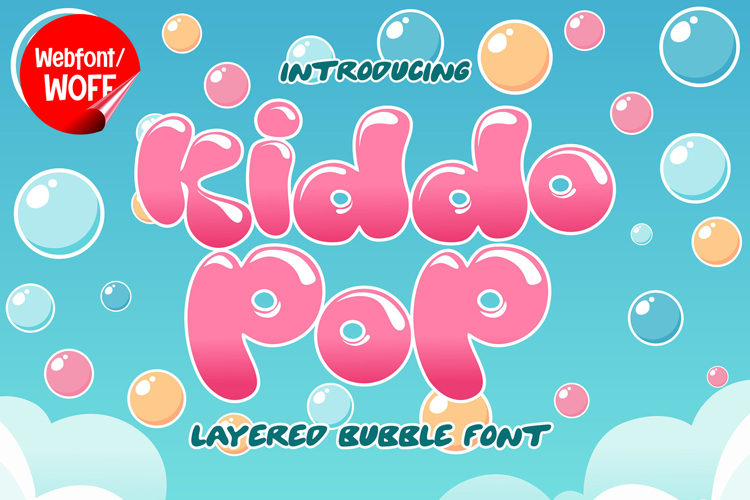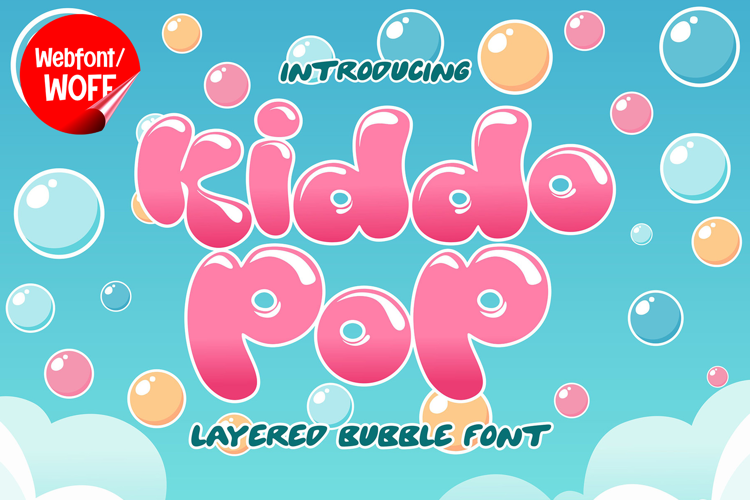
Kiddo Pop | Cute Layered Webfont for Fun Creative Design
Kiddo Pop is a cute layered webfont designed to bring cheerful energy and playful creativity into modern website design. Inspired by cartoon lettering, colorful kids’ graphics, and bubbly display typography, this font features rounded shapes and layered depth that create a fun and eye-catching visual identity. It is an excellent choice for projects that aim to deliver a lively, adorable, and engaging typographic style.
Kiddo Pop includes a complete set of uppercase characters designed with cute layered aesthetics. The letterforms feature bold rounded shapes combined with dimensional layering effects that create depth and visual excitement. These characteristics make it ideal for headlines, banners, hero sections, product displays, and featured content where a playful and colorful appearance is needed.
In addition to letters, the font includes numbers and punctuation, allowing flexible usage across various parts of a website. It works well for children’s websites, toy branding, educational platforms, party invitations, creative campaigns, and social media graphics. Each character maintains a consistent cute layered style, ensuring a cohesive and unified visual identity throughout the design.
With multilingual support, Kiddo Pop includes a wide range of accented characters, making it suitable for international websites and global audiences. This ensures content remains clear and visually consistent across different languages while preserving the fun and cheerful aesthetic.
The cute layered style of Kiddo Pop makes it especially suitable for kids’ brands, candy shops, playful digital campaigns, cartoon-themed projects, and family-oriented websites. Its dimensional structure and bubbly appearance create a joyful atmosphere that helps websites stand out in visually competitive environments. The layered details add depth and excitement while maintaining a soft and friendly visual style.
Despite its playful and decorative appearance, Kiddo Pop is designed with readability in mind. The spacing and proportions are carefully balanced to ensure clarity, particularly in display sizes. This allows designers to use the font effectively for impactful headings and short content without sacrificing usability.
Kiddo Pop is a webfont that combines cute layered aesthetics with modern digital performance. Its rounded forms, dimensional depth, and cheerful character create a distinctive typographic presence that enhances website design. For projects that require a fun, colorful, and visually engaging display font, Kiddo Pop offers a versatile and delightful solution.